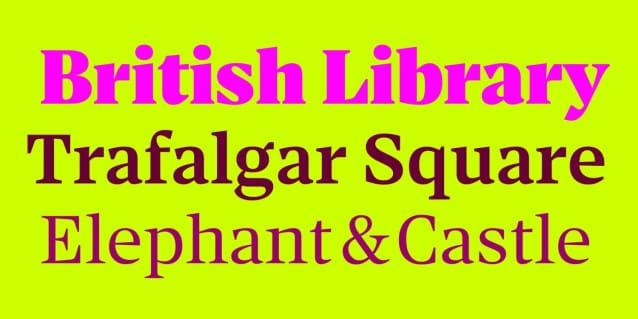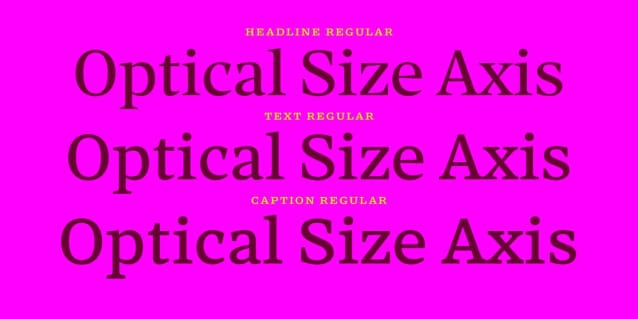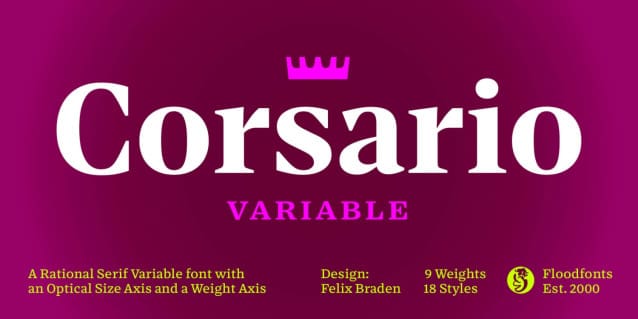
Corsario VF Font
Corsario VF Font is a variable font family with an optical size axis and a weight axis, tailor-made for the demands of magazines and editorial design, offering a unique blend of flexibility and style.
Corsario comes as a variable font with 2 axes (Optical Size and Weight) resulting in 27 styles (9 weights in 3 optical sizes), offering unparalleled flexibility in the choice of uses. Designed as a workhorse, Corsario excels in versatility and strikes a harmonious balance between visual appeal and practicality. Whether you‘re setting striking headlines or immersing readers in extensive editorial content, Corsario guarantees an exceptional reading experience, making it the perfect choice for magazines and editorial design.
Inspired by the timeless allure of British transitional style, Corsario marries classical sophistication with a modern edge. The sharp, prominent serifs make a bold statement, ensuring your text commands attention while exuding an unmistakable elegance.